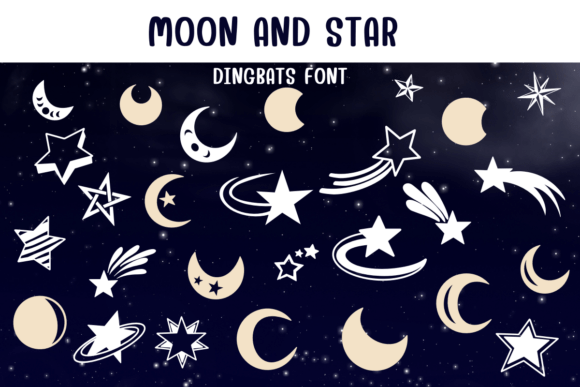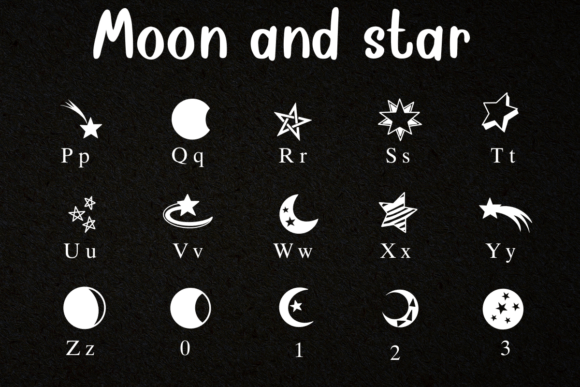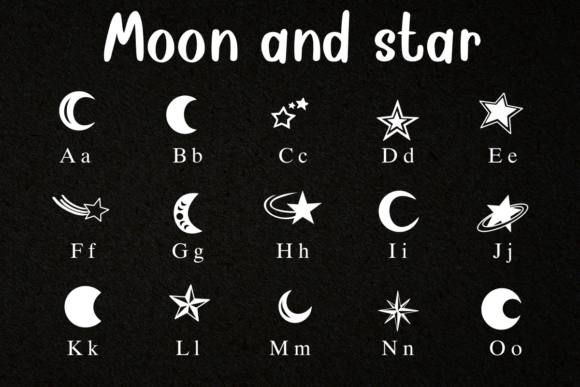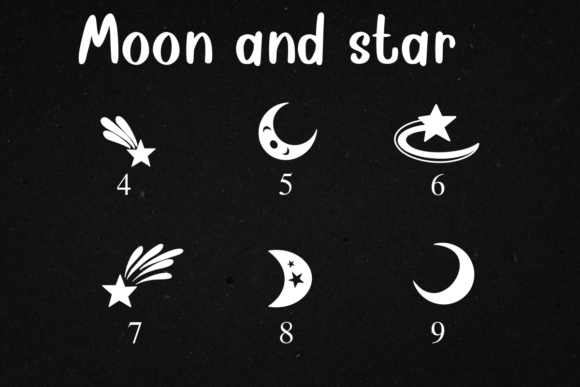
Moon and Star Font
About the Moon and Star Font
From logos to headlines, the Moon and Star Font is the perfect choice for making a lasting impression. Moon and Star is a magical dingbat font filled with celestial elements like crescent moons, shining stars, and cosmic swirls. Ideal for astrology-themed designs, mystical branding, dreamy invitations, and night sky illustrations, this font brings a touch of wonder to your creative projects.
Moon and Star excels in display applications such as logos, short headlines, and social media graphics where its whimsical charm can shine. It’s also well-suited for packaging design for products with a mystical or ethereal brand identity. However, its decorative nature makes it unsuitable for body text or UI elements requiring high readability. Avoid using it for large blocks of text.
Pairing Moon and Star with a clean sans-serif like Lato or Open Sans provides a strong contrast, grounding the whimsicality of the dingbats. For a more elegant feel, consider pairing it with a classic serif like Garamond or a delicate script font for invitations. The key is to select a typeface that offers legibility and stability to balance the playful energy of Moon and Star.
The overall personality of Moon and Star is whimsical and dreamy, lending itself to brands focused on fantasy, spirituality, or children’s products. Its charming, slightly quirky nature adds a touch of magic without being overly childish.